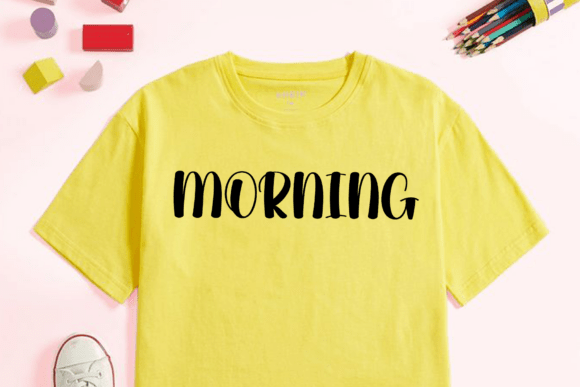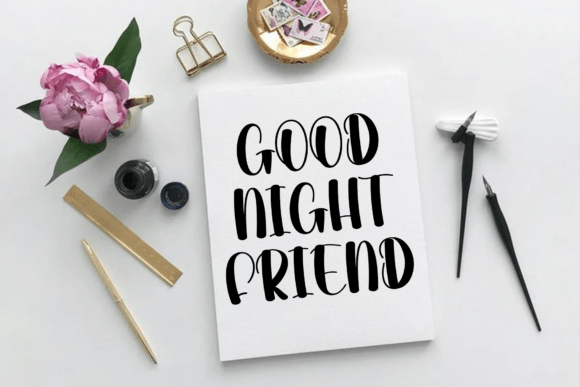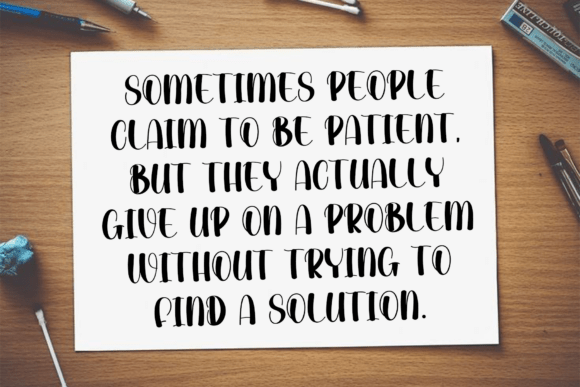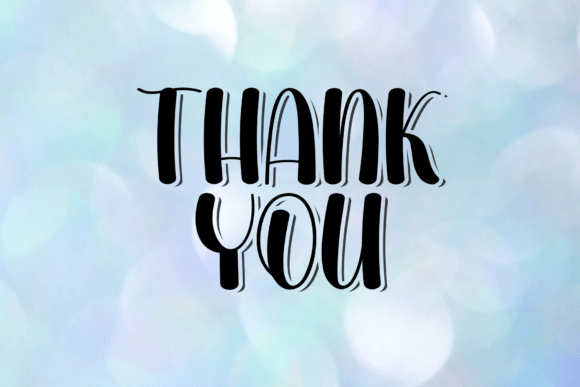
Introducing Authentic: The Bold and Creative Display Font for Standout Projects
In the world of design, fonts play a crucial role in conveying the tone and personality of a project. For creatives looking to make a lasting impression, a unique and eye-catching font is essential. This is where Authentic comes in – a bold, creative, and uniquely stylized display font designed to make your projects stand out from the crowd.
The Distinctive Features of Authentic
Authentic boasts a distinctive layered stroke design that gives it a handcrafted feel. This modern font is perfect for projects that require a touch of personality and flair. Its bold and creative style ensures that every word leaves a memorable impact, making it ideal for designers and crafters who want to add a fresh and expressive touch to their work.
Authentic is a versatile font that can be used for a wide range of projects, including:
- Logos: Create a lasting impression with a unique and memorable logo that showcases your brand’s personality.
- Posters: Grab attention with bold and eye-catching posters that showcase your message in a creative and impactful way.
- Social Media Graphics: Elevate your social media presence with graphics that reflect your brand’s personality and style.
- Packaging: Add a touch of personality to your packaging with a font that stands out on store shelves.
- Branding Materials: Ensure consistency across all your branding materials with a font that reflects your brand’s unique personality.
Why Choose Authentic?
With Authentic, you can:
- Add a touch of personality: Authentic’s unique design ensures that your project stands out from the crowd and reflects your brand’s personality.
- Create a lasting impression: The font’s bold and eye-catching style ensures that every word leaves a memorable impact.
- Enhance your brand’s visibility: Authentic’s distinctive design makes it perfect for projects that require a touch of creativity and flair.
Tips for Using Authentic Effectively
To get the most out of Authentic, here are some tips to keep in mind:
- Use it sparingly: Authentic is a bold font, so use it sparingly to avoid overwhelming your design.
- Experiment with colors: Try pairing Authentic with different colors to create a unique and eye-catching effect.
- Play with layout: Experiment with different layouts to create a design that’s visually appealing and engaging.
Authentic is a bold, creative, and uniquely stylized display font that’s perfect for projects that need to stand out. With its distinctive layered strokes and modern flair, this font brings a handcrafted feel to logos, posters, social media graphics, packaging, and branding materials. Whether you’re a designer or crafter, Authentic is the perfect choice for adding a touch of personality and flair to your work.